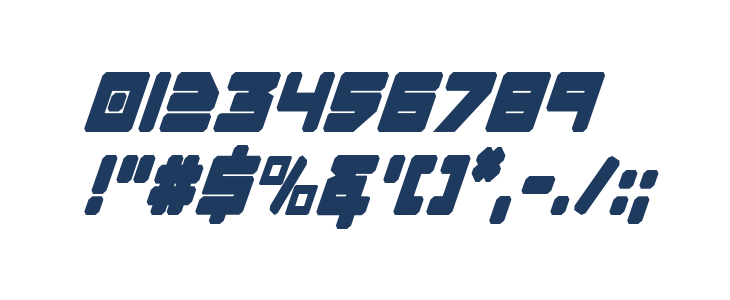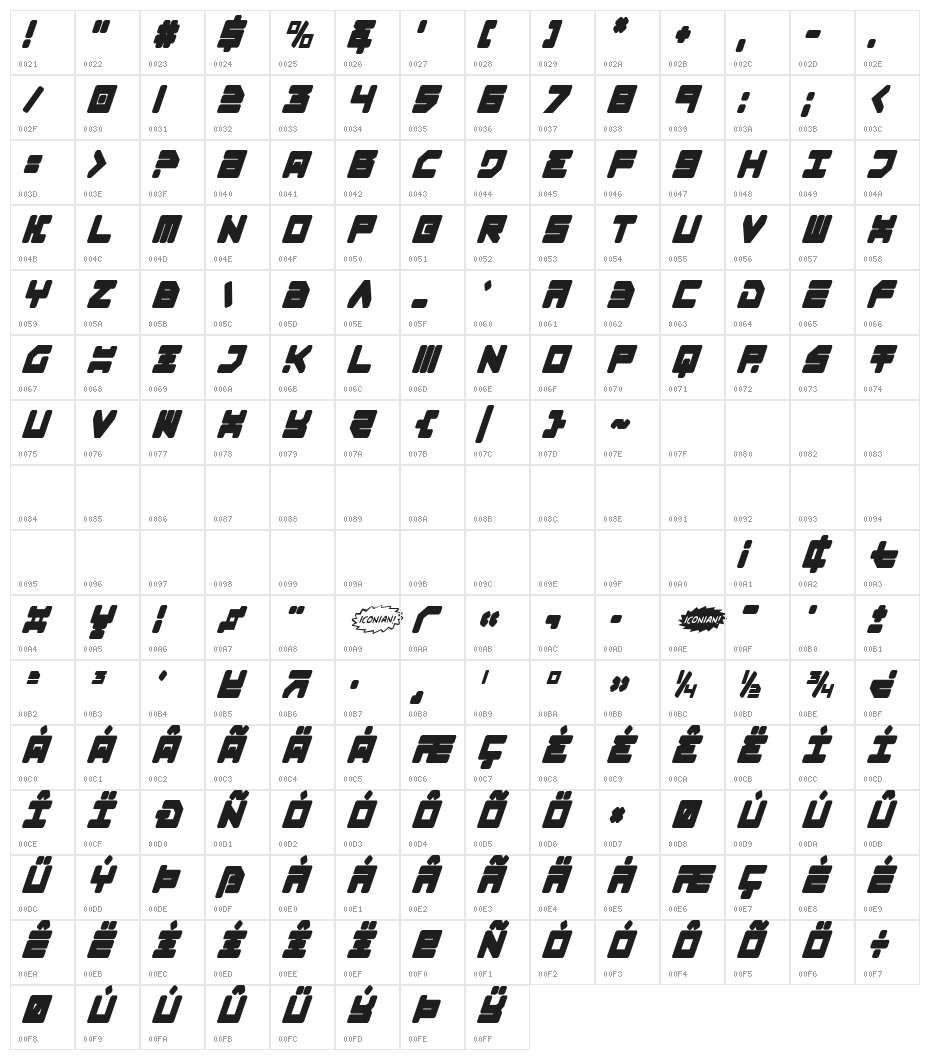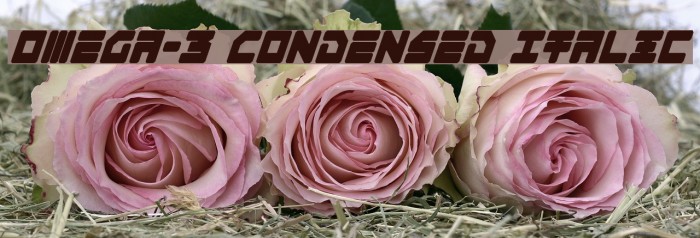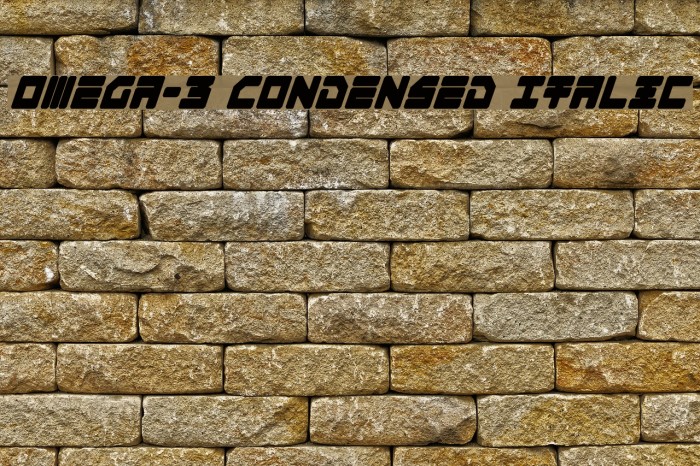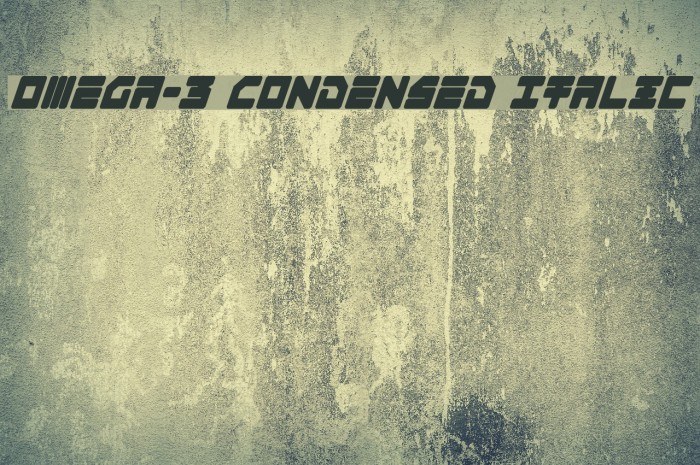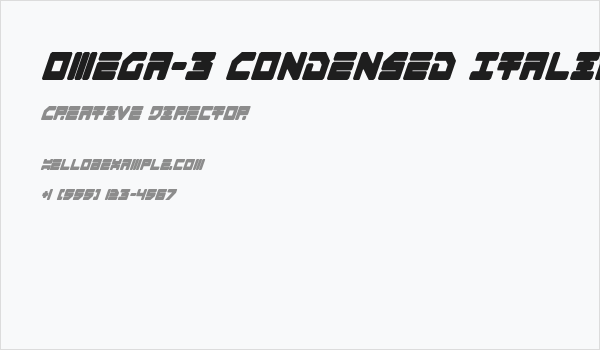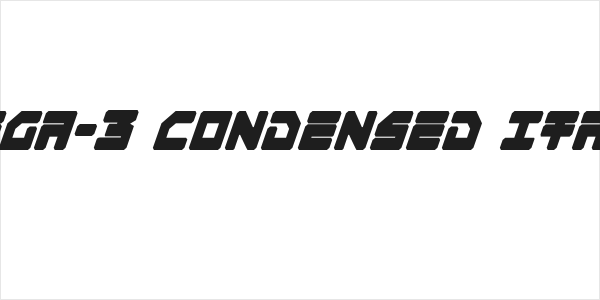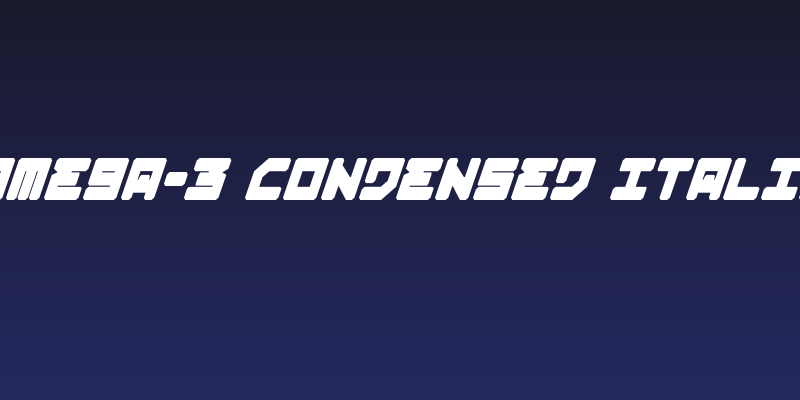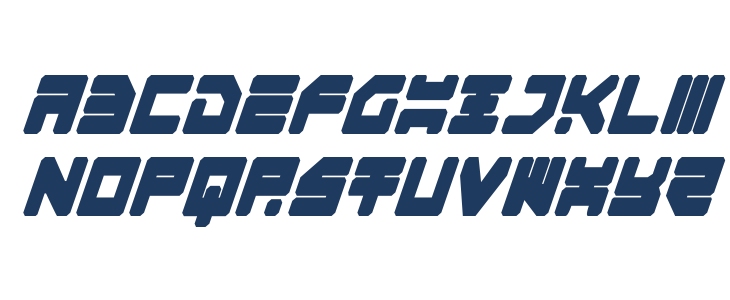
Omega-3 Condensed Italic Font
Omega-3 Condensed Italic Description
This font features a bold and futuristic design with a condensed and italicized style. The characters are blocky with sharp angles, giving them a dynamic and modern appearance. The uppercase and lowercase letters maintain a consistent width, contributing to a uniform look. The numbers and special characters are designed to match the boldness and angularity of the alphabet, ensuring a cohesive visual experience. The font's condensed nature makes it suitable for tight spaces while maintaining legibility. Its italic slant adds a sense of motion and energy, making it ideal for projects that require a contemporary and edgy feel.